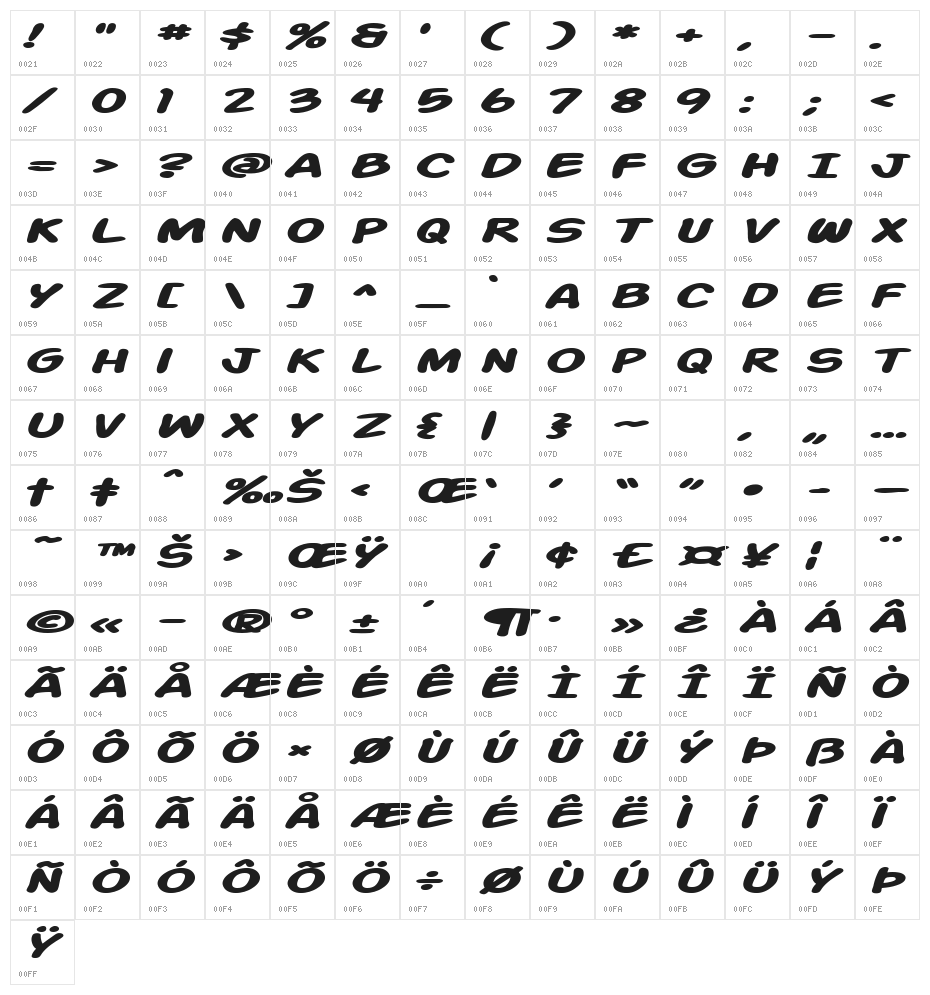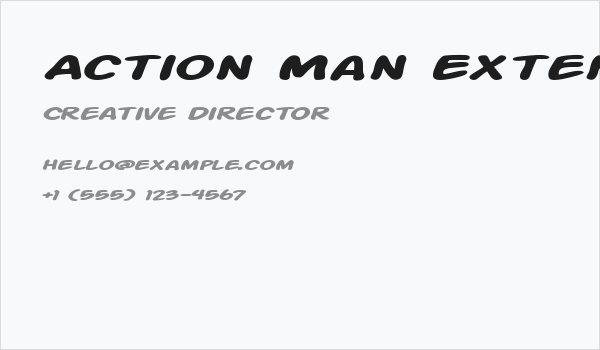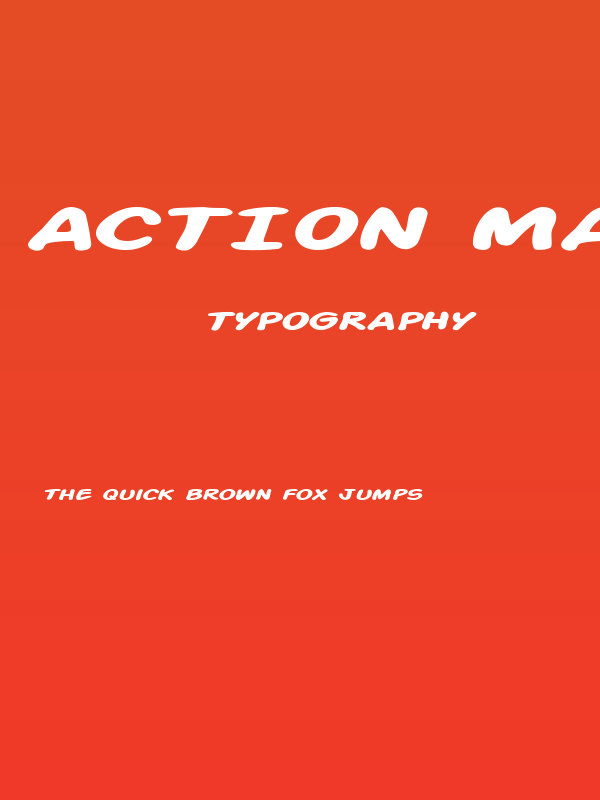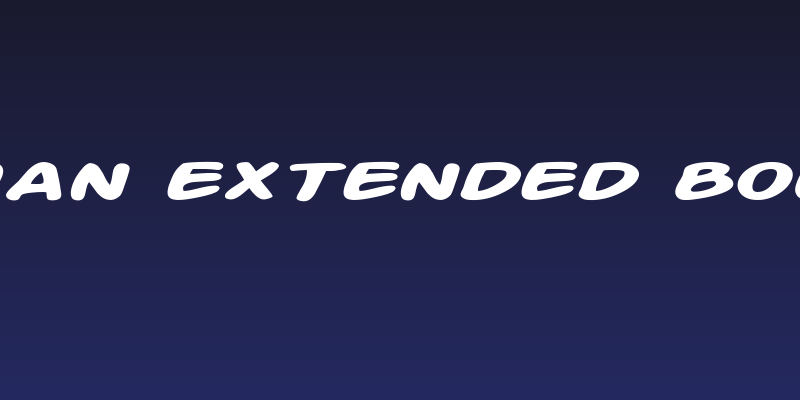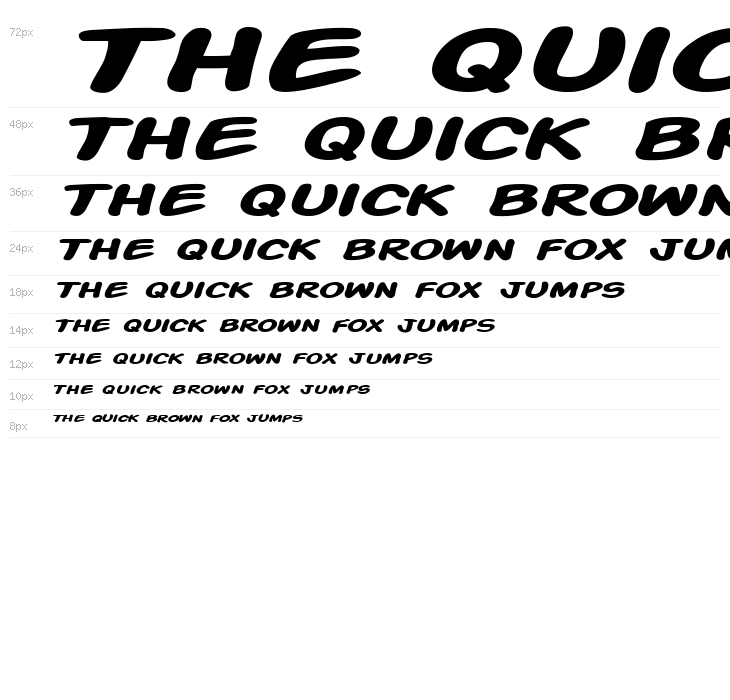
Action Man Extended Bold Italic Font
Action Man Extended Bold Italic Description
This font features a bold and italicized style with a dynamic and energetic appearance. The characters are extended and have a playful, rounded form, giving them a sense of movement and flair. The uppercase and lowercase letters maintain a consistent style, with smooth curves and a slightly slanted orientation. The numbers and special characters follow the same design principles, ensuring uniformity across the font. The overall look is modern and eye-catching, making it suitable for projects that require a bold statement.